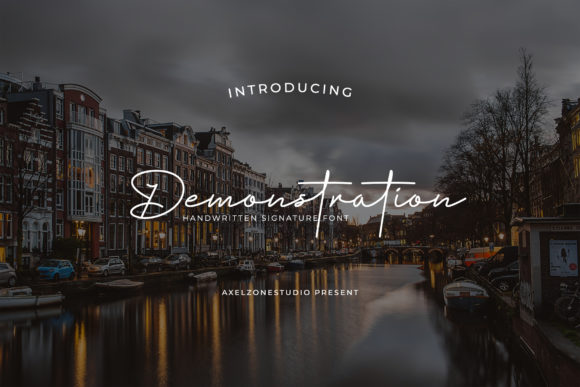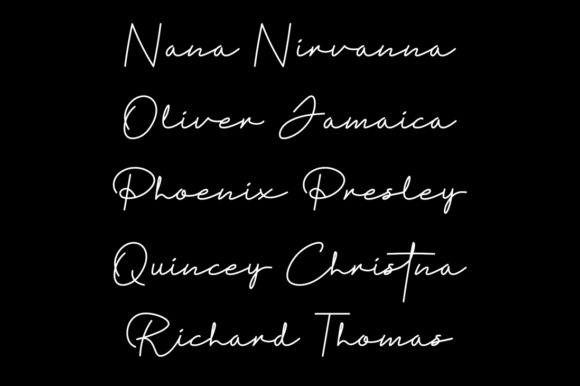
About Demonstration Font
Demonstration is an exquisitely distinct, delicate, and timeless handwritten font that exudes charm and elegance. Its stunning beauty makes it a perfect match for a wide range of design projects, adding a captivating handwritten touch to each creation.
For wedding invitations, Demonstration shines brightly. Its delicate and flowing characters set the stage for a romantic celebration, infusing your invites with a sense of love and enchantment.
Thank you cards become truly special with Demonstration. Its timeless handwritten style conveys gratitude and sincerity, leaving a lasting impression on recipients.
When it comes to quotes and greeting cards, Demonstration becomes a powerful tool. Its unique and delicate appearance adds a touch of artistic flair, making your messages stand out and resonate with authenticity.
For logos and business cards, Demonstration becomes an iconic representation of your brand. Its distinct and elegant charm communicates professionalism and creativity, making your brand memorable to customers.
Any design that craves a handwritten touch finds its perfect match in Demonstration. From personalized stationery to social media graphics, the font elevates your projects with a sense of sophistication and grace.
Moreover, Demonstration’s timeless nature ensures that your designs remain relevant and beautiful over time. It transcends trends, making it a valuable asset for any creative endeavor.
Incorporating Demonstration into your designs is a delightful experience. Its delicacy and elegance inspire creativity and encourage you to explore the limitless possibilities of handwritten artistry.
In summary, Demonstration is more than just a font; it’s a work of art that adds a delicate and timeless handwritten touch to your designs. Embrace the beauty of Demonstration and witness how it transforms wedding invitations, thank you cards, quotes, greeting cards, logos, business cards, and every other project into stunning and heartfelt expressions that leave a lasting impact on all who encounter them.